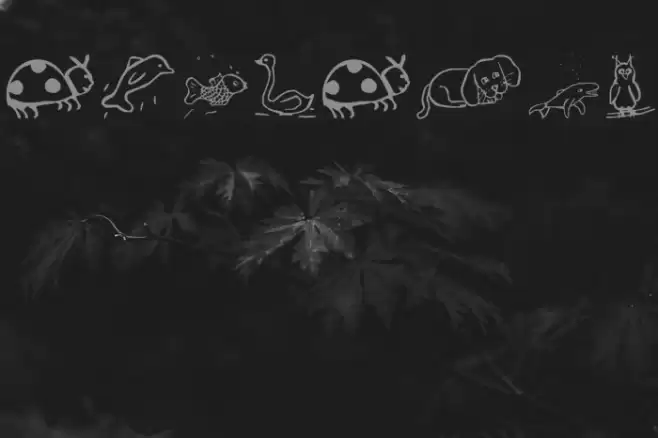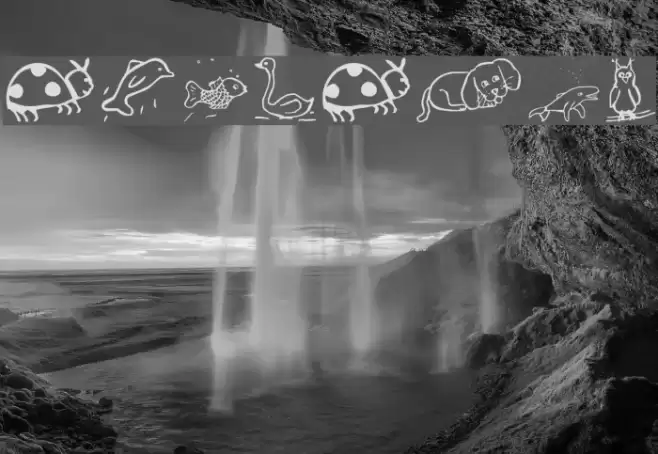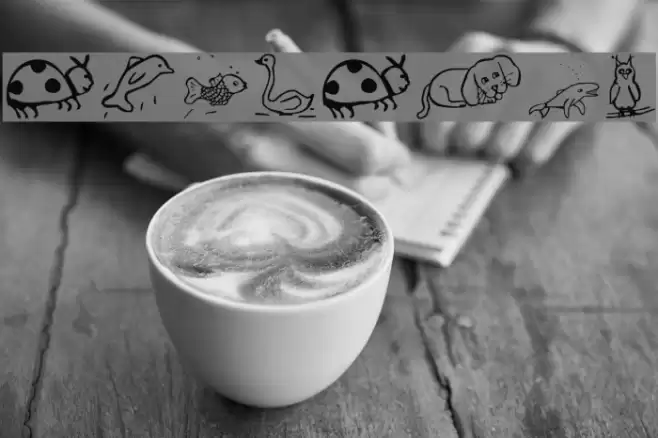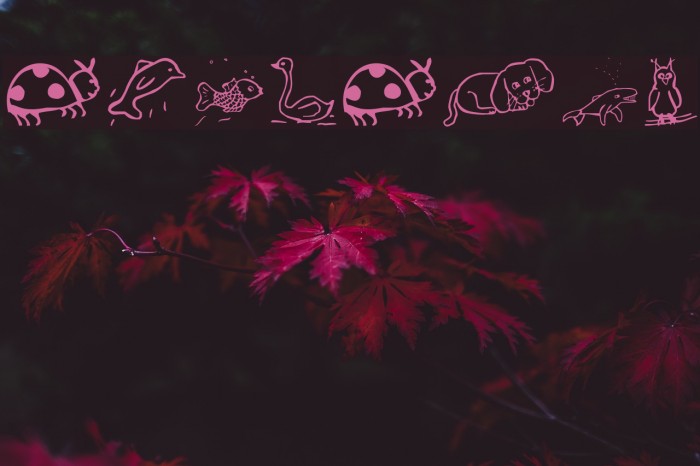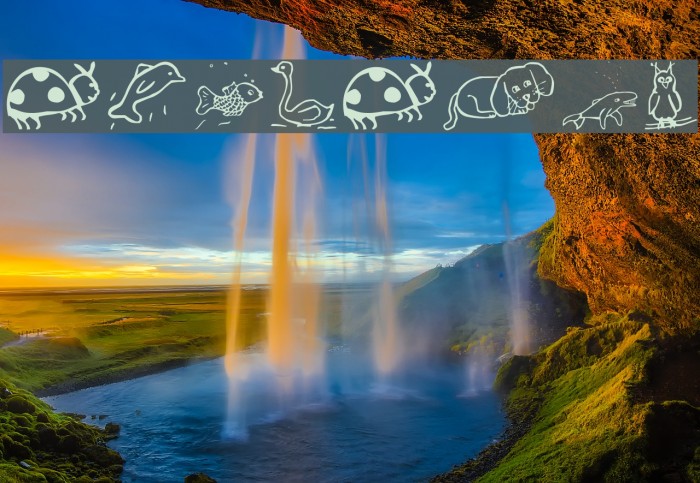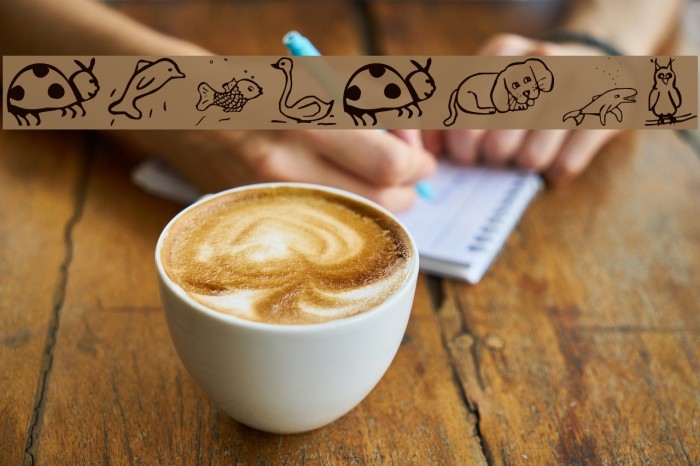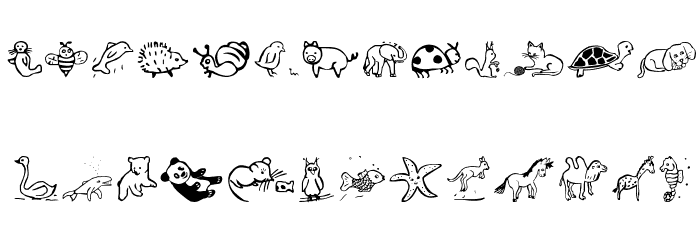
Pict-Animos Font
Pict-Animos Description
A playful, illustrative font featuring hand-drawn animal pictograms for each character, with a whimsical and cartoon-like style. Each glyph is a unique animal drawing, making it highly decorative and thematic.
Hand-drawn animal pictogram font with a whimsical, playful style from Dingbats fonts.
- Proposed Projects: Children’s books, educational materials, posters, greeting cards, playful branding, animal-themed events.
- Overall Style: Decorative, Playful, Whimsical
- Use Case: Logos, Posters, Educational materials, Children’s content